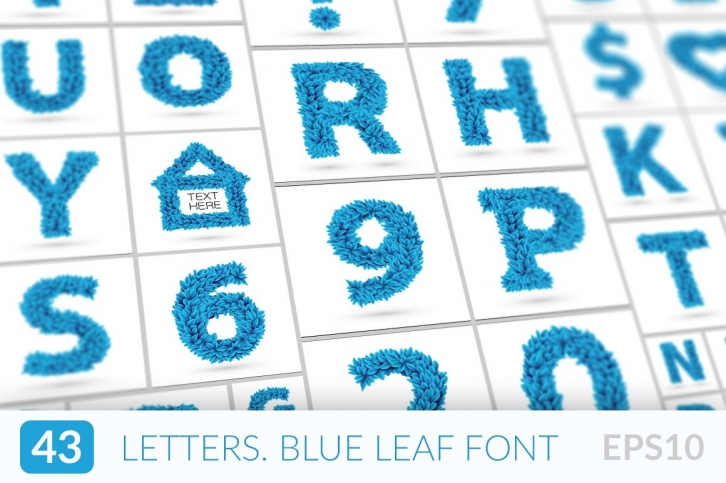
That's another version of the Leaf Font. Natural colors are great, but sometimes design concept requires something special. Inspired with Avatar movie this font works good for printing materials as well as in digital. It's still all in vector and fully scalable.